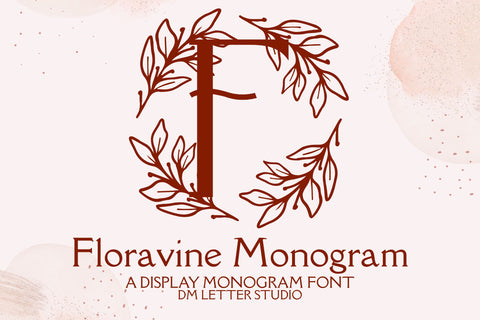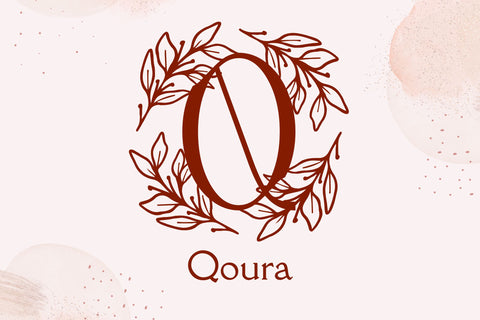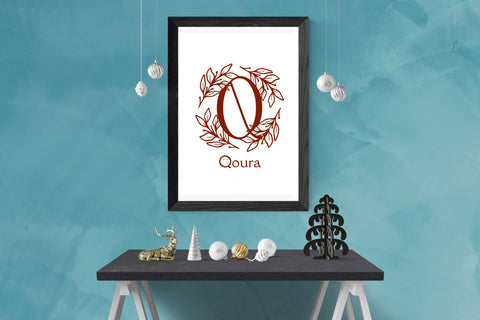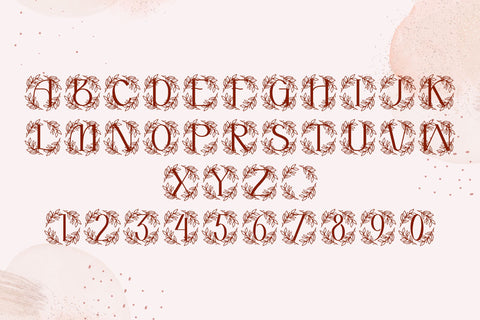
Floravine Monogram
Meet Floravine, the Monogram Font
Floravine Monogram turns simple initials into graceful floral-vine emblems that feel romantic, airy, and handcrafted. The strokes are smooth and balanced, so letters stay clear at any size. Because counters remain open, tiny tags print crisp while large signage looks elegant and premium. Use it for wedding suites, boutique logos, keepsake gifts, wax seals, stationery, and luxury packaging. As a result, your designs gain a soft botanical charm that looks gift-ready right away.
Fast layouts with the Floravine Monogram
Start with a generous initial and let white space breathe. After that, add names, dates, or short titles in a simple supporting font. Because Floravine holds shape at small sizes, cards, cartons, acrylic signs, and tags print beautifully. In addition, the proportions love wreath frames, laurel rings, oval borders, and vine accents, so full sets come together in minutes. Finally, save palette pairs like sage & ivory, blush & cocoa, champagne & charcoal, or navy & pearl to repeat across product lines.
Creative uses and quick wins
- Logo seals, place cards, and certificate badges
- Wax seals, ribbon tags, and keepsake boxes
- Invitation covers, menu headings, and table numbers
- Favor stickers, tissue labels, and thank-you notes
- Uppercase, lowercase, numbers, punctuation
- Select stylistic alternates for key letters
- Multilingual Latin support
- Curves tuned for foil, letterpress, engraving, laser, vinyl, DTF, and sublimation
Design tips for Floravine Monogram
Keep copy short and let the initial lead. Also, add a fine inner stroke or a soft shadow to create depth on light backgrounds. For texture, try linen stocks, vellum wraps, or pearl papers. Finally, export at 300 DPI for print and at 2× size for web, so edges stay smooth everywhere.